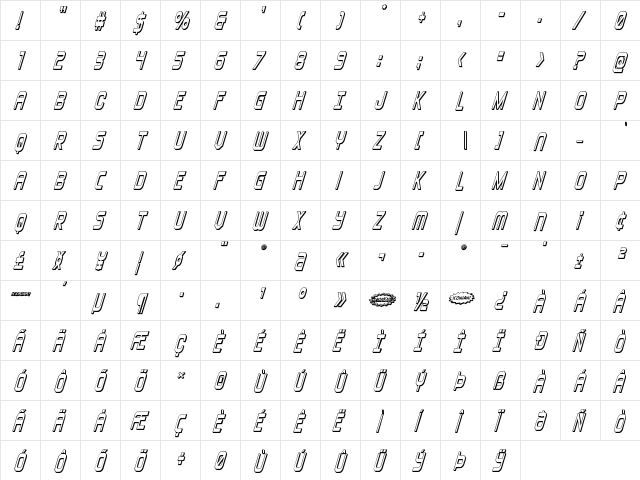
Blizzard Shaft 3D Italic Regular
Design Context for Blizzard Shaft 3D Italic Typeface
Blizzard Shaft 3D Italic is a composed and adaptable typeface that performs quietly and consistently across a wide range of design contexts. The slanted form adds forward momentum and visual energy.
Pro Tip: Use Blizzard Shaft 3D Italic for emphasis, pull quotes, and subheadings where its slanted energy can add rhythm to the layout.